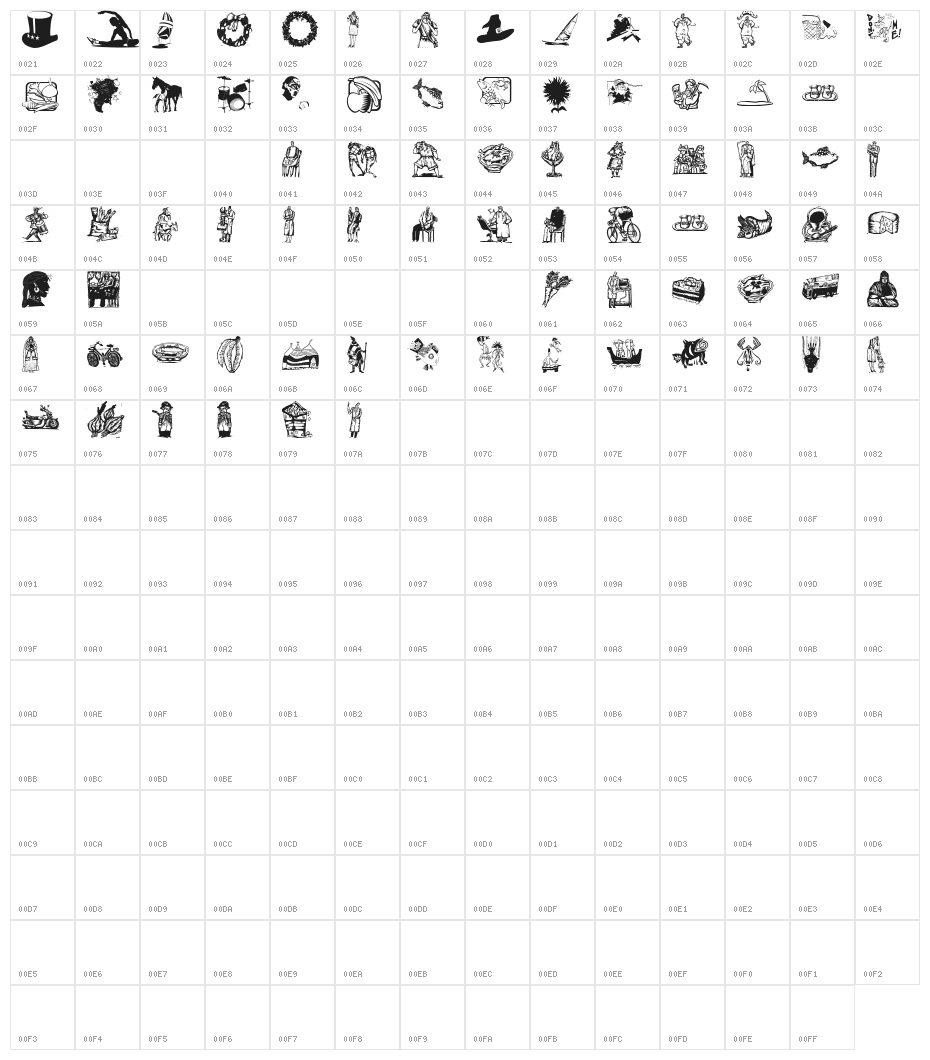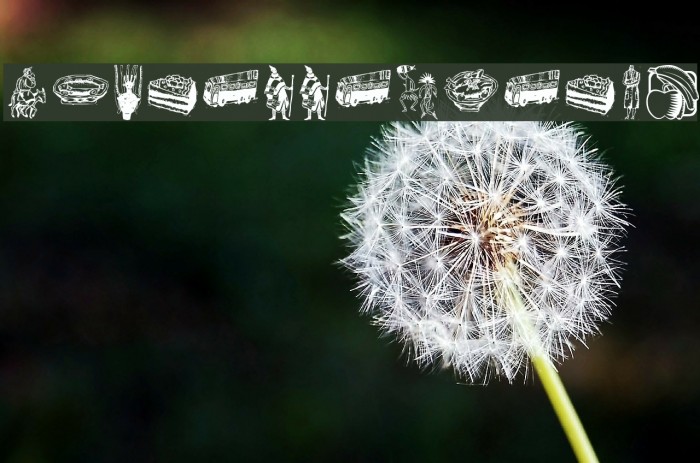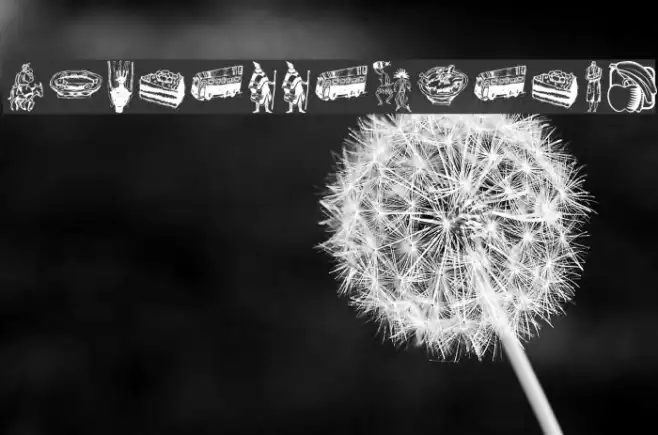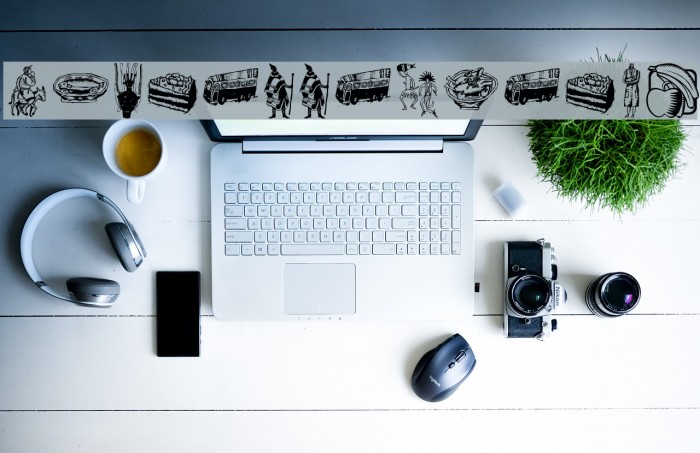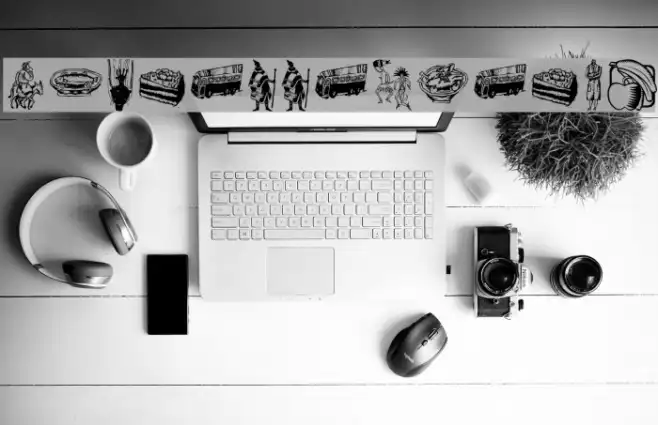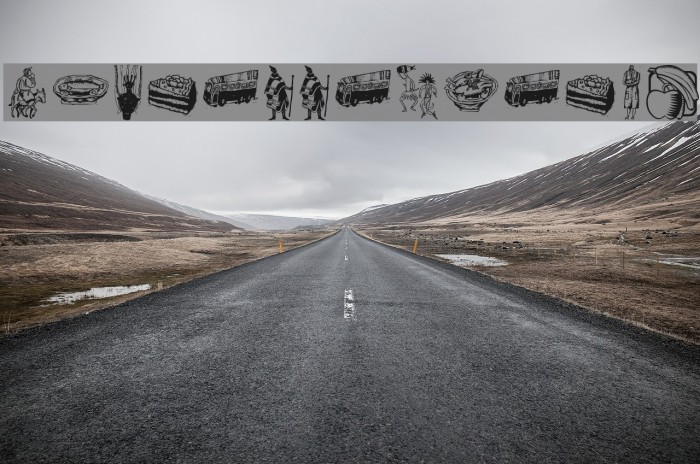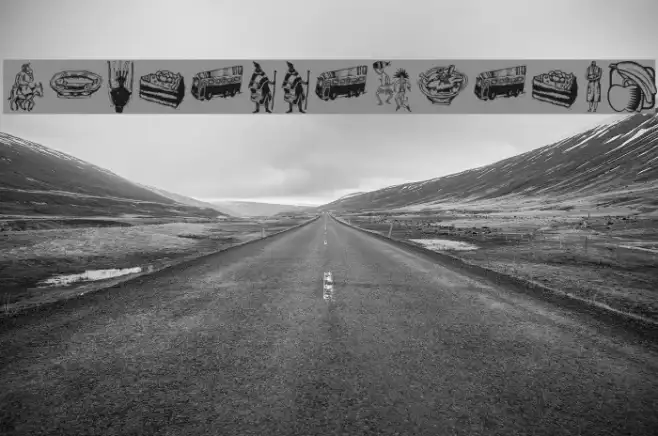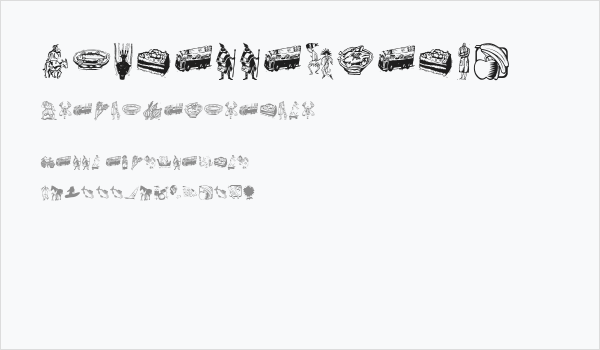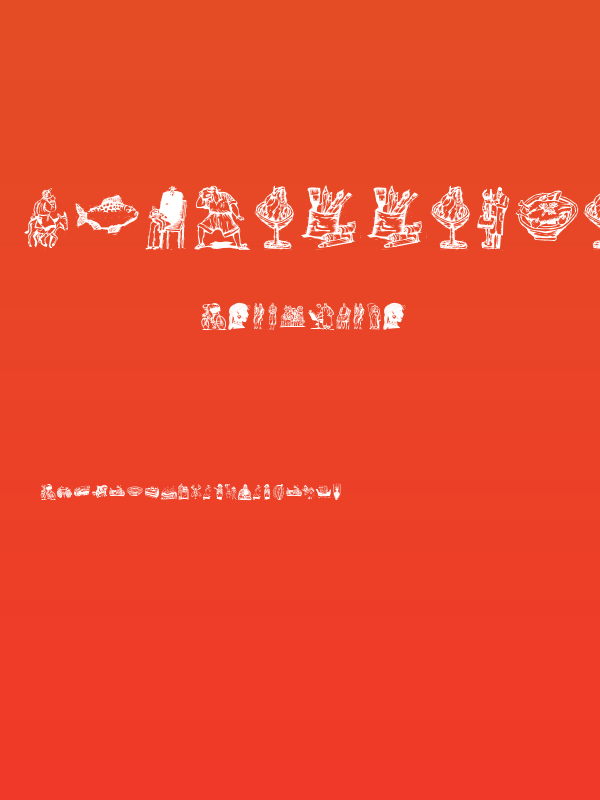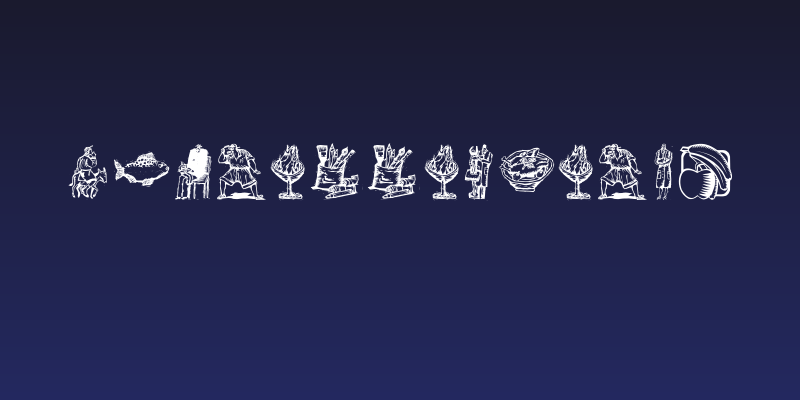
MiscellenDecO4 Font
MiscellenDecO4 Description
A highly decorative and illustrative dingbat font composed of detailed black-and-white drawings depicting people, animals, objects, and scenes. Each character is represented by a unique pictorial illustration rather than a traditional alphanumeric glyph.
| Overall Style | Decorative, Illustrative, Playful |
| Use Case | Icons, Decorative elements, Themed graphics |
| Proposed Projects | ChildrenΓ’β¬β’s books, educational materials, creative posters, themed invitations, scrapbooking, visual storytelling. |